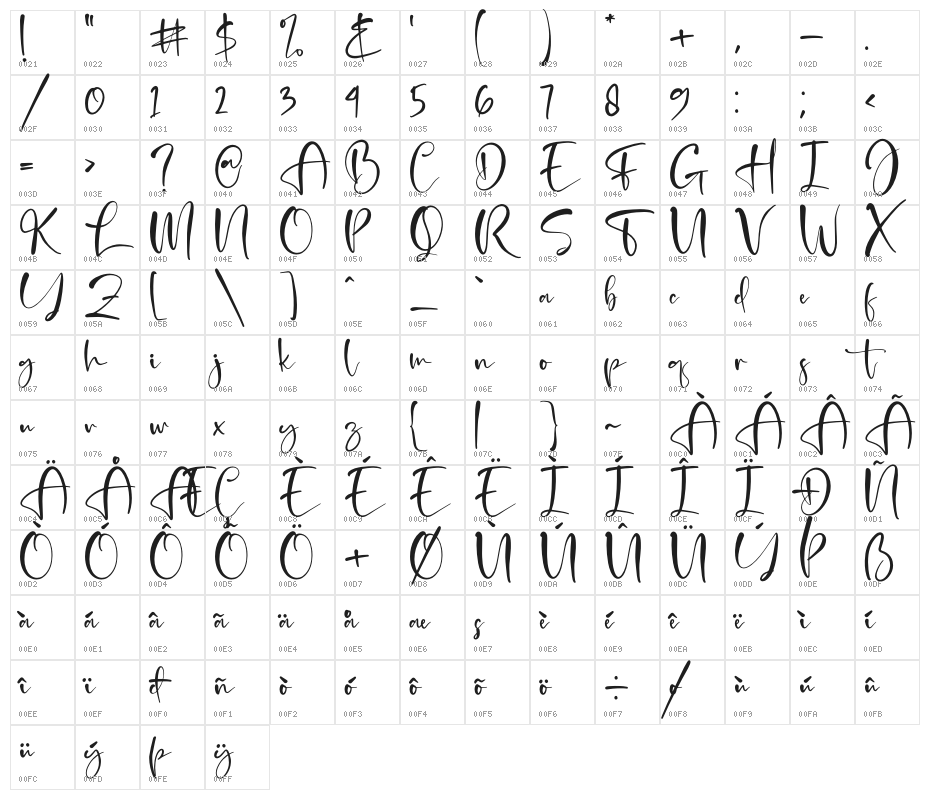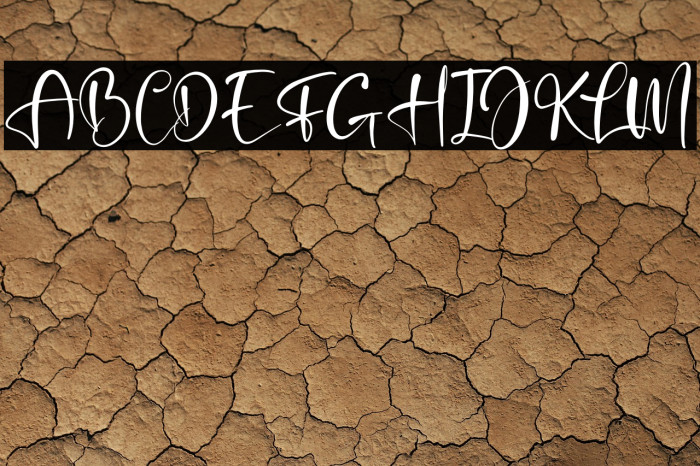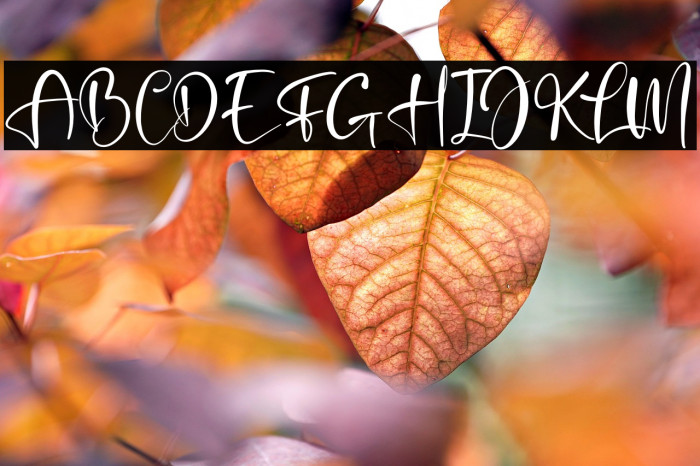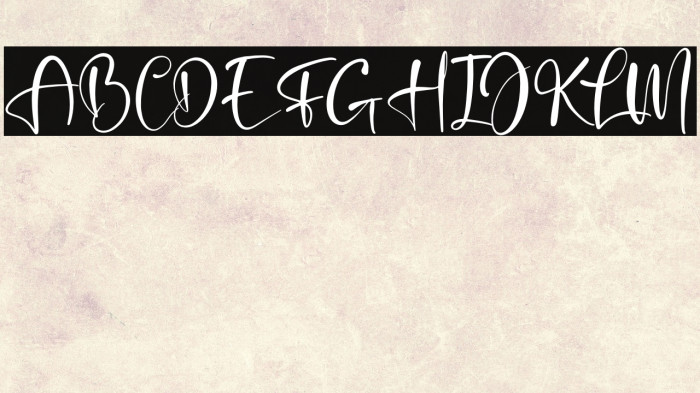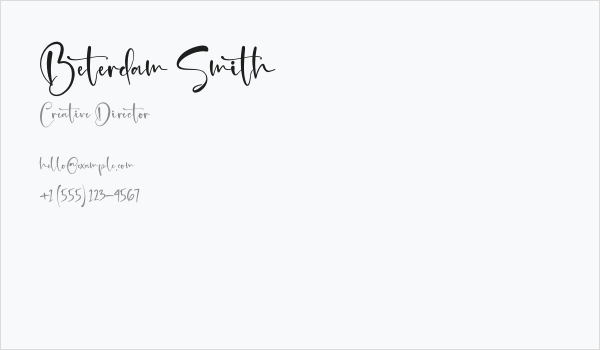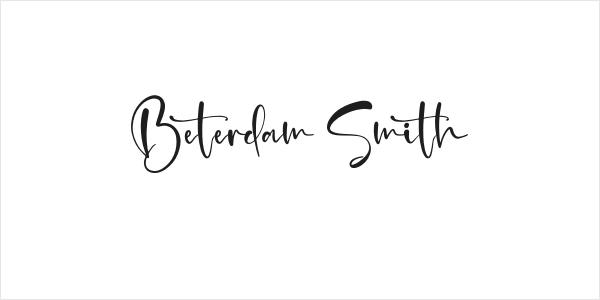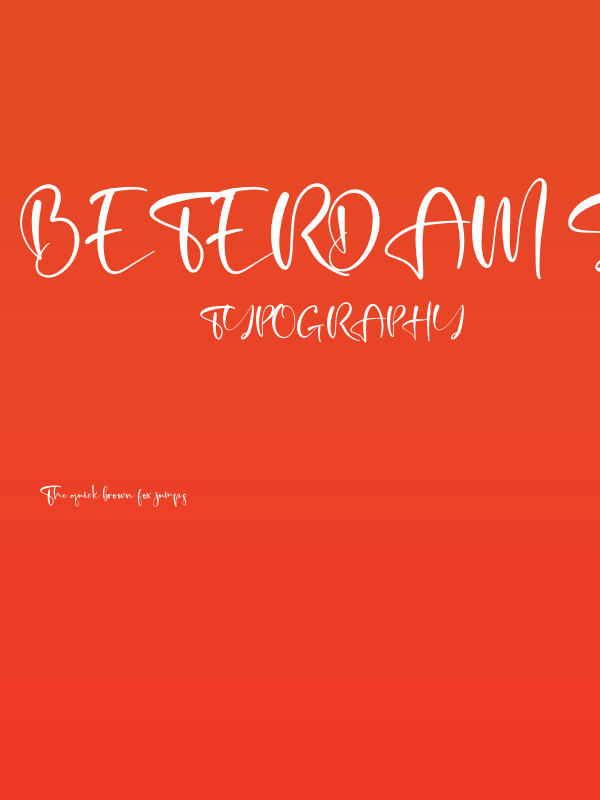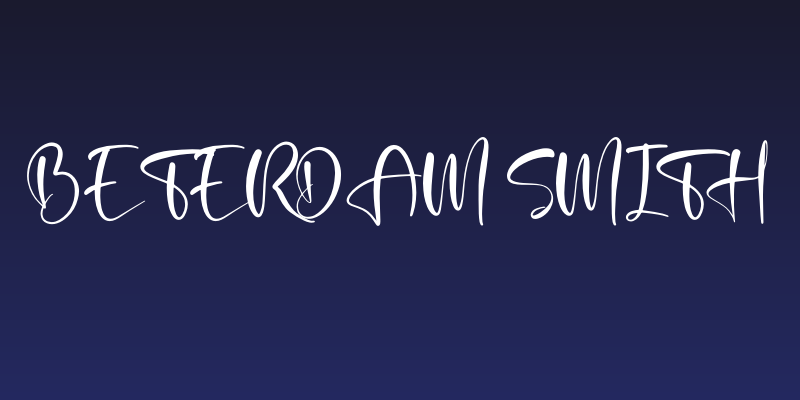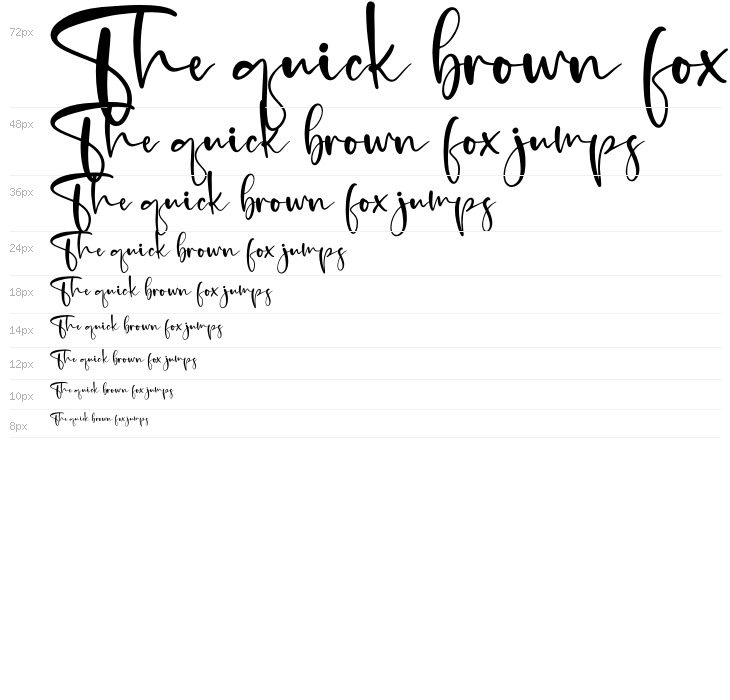
Beterdam Smith Font
Beterdam Smith Description
This font features a lively and expressive handwritten style, characterized by its fluid and dynamic strokes. The uppercase letters exhibit a playful yet elegant flair, with varying line thickness that adds a sense of movement and energy. The lowercase letters maintain this whimsical quality, offering a harmonious blend of curves and angles. Numbers and special characters are crafted with the same attention to detail, ensuring consistency across all glyphs. The overall design is both artistic and approachable, making it suitable for creative and informal applications.
| Proposed Projects | Ideal for greeting cards, invitations, branding, and social media graphics where a personal touch is desired. |